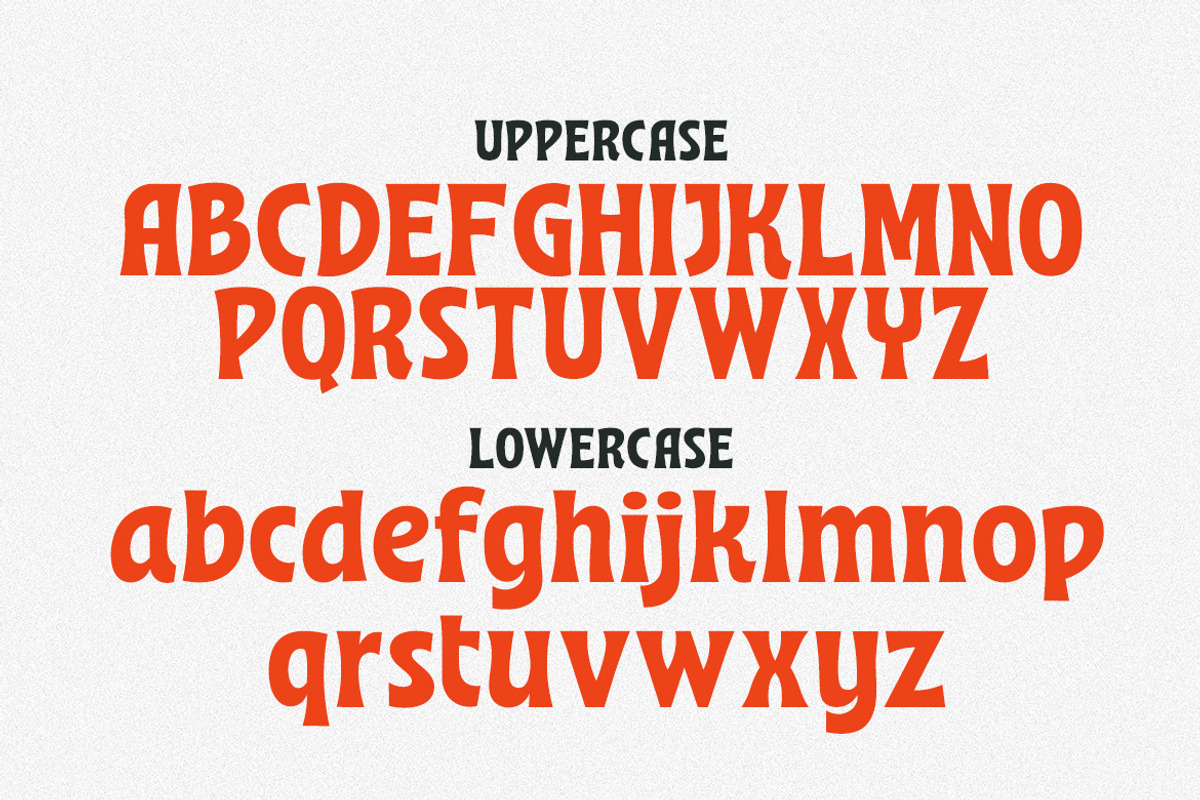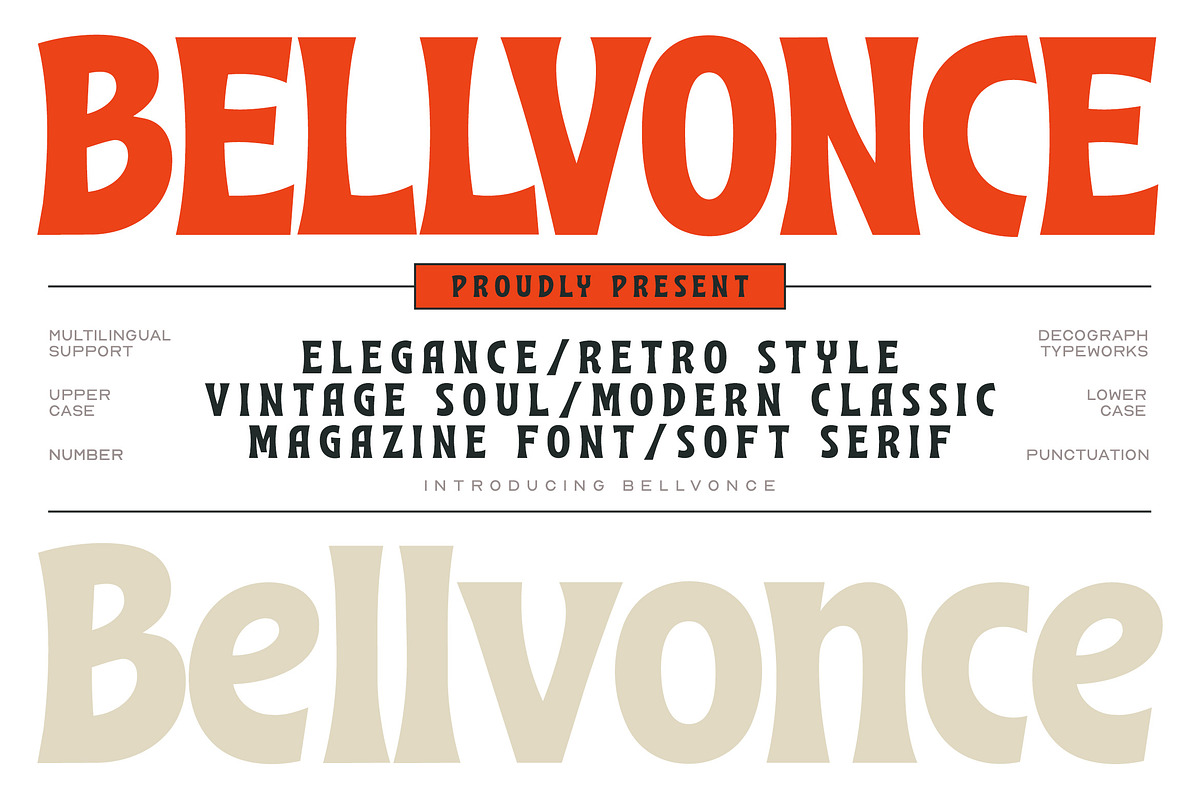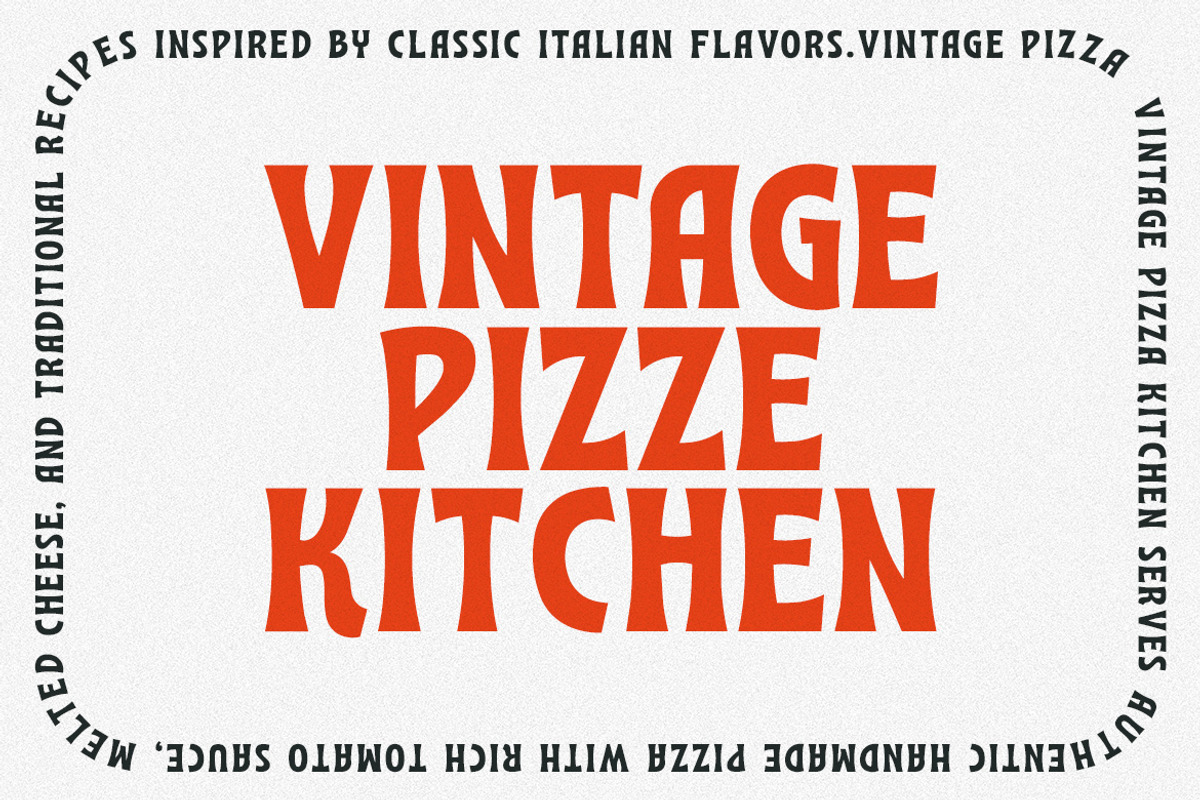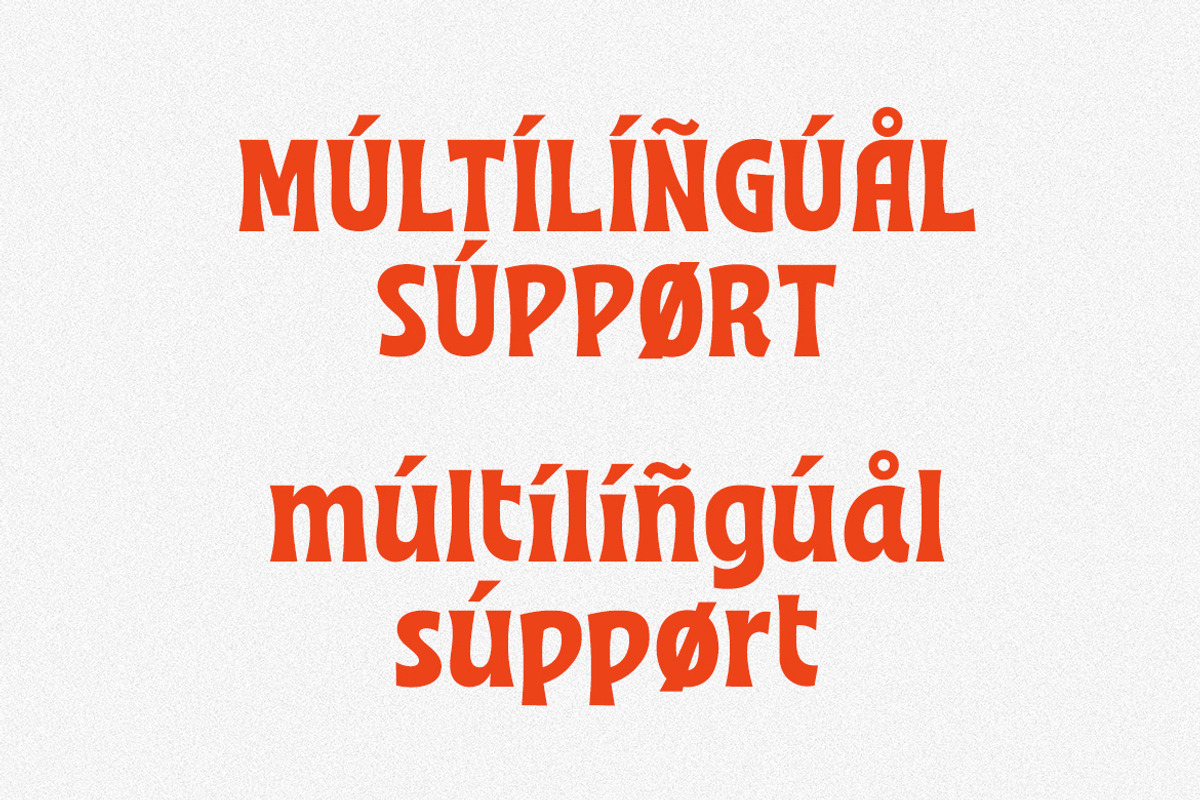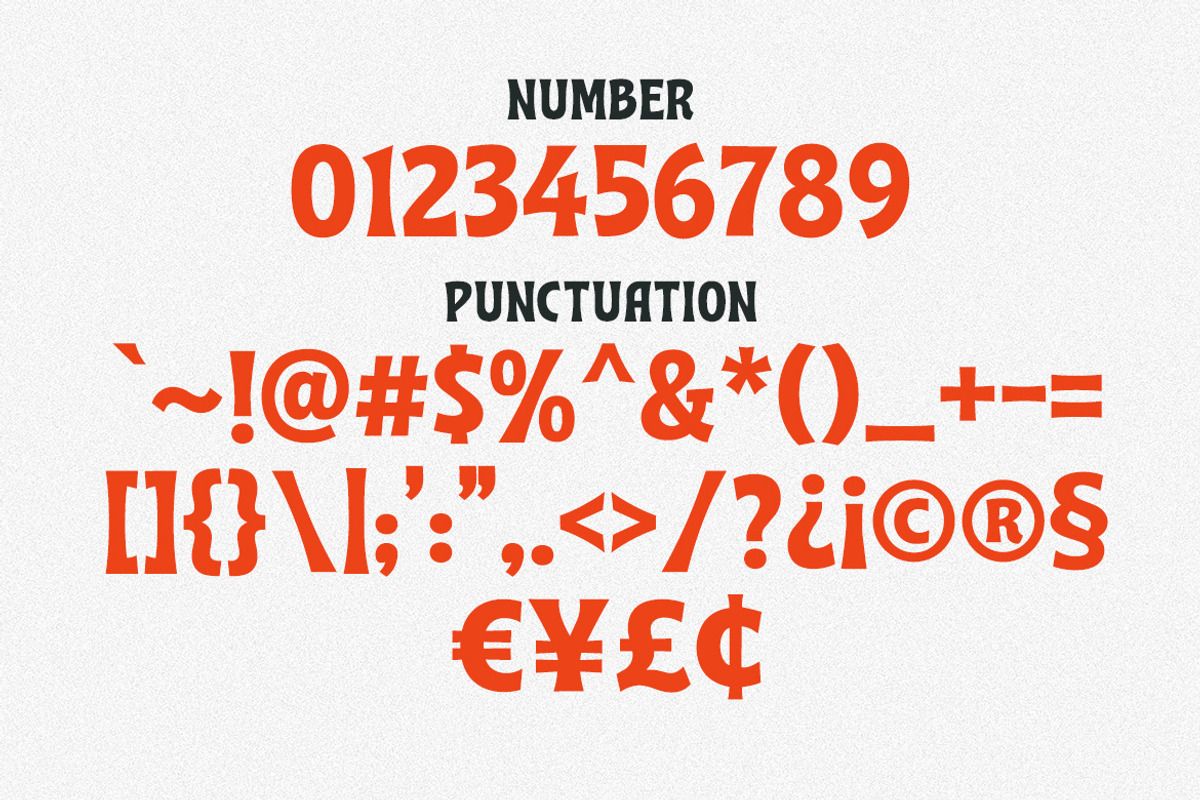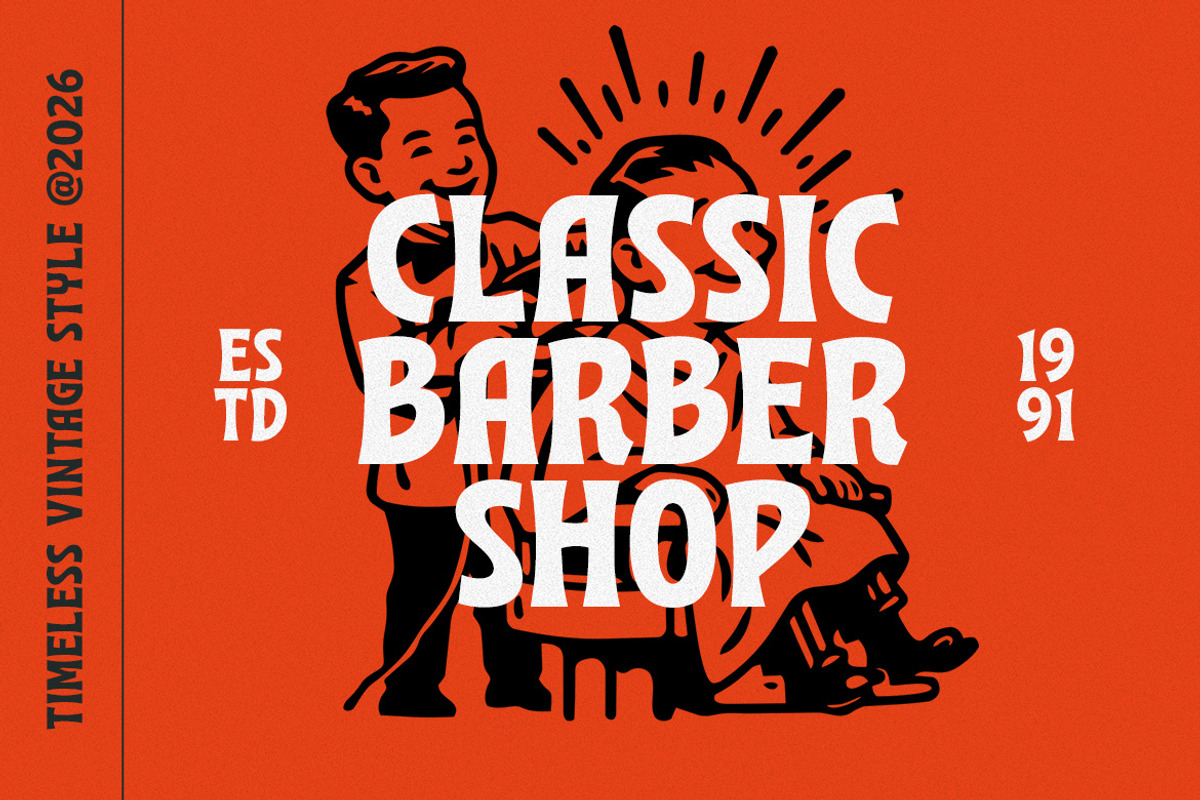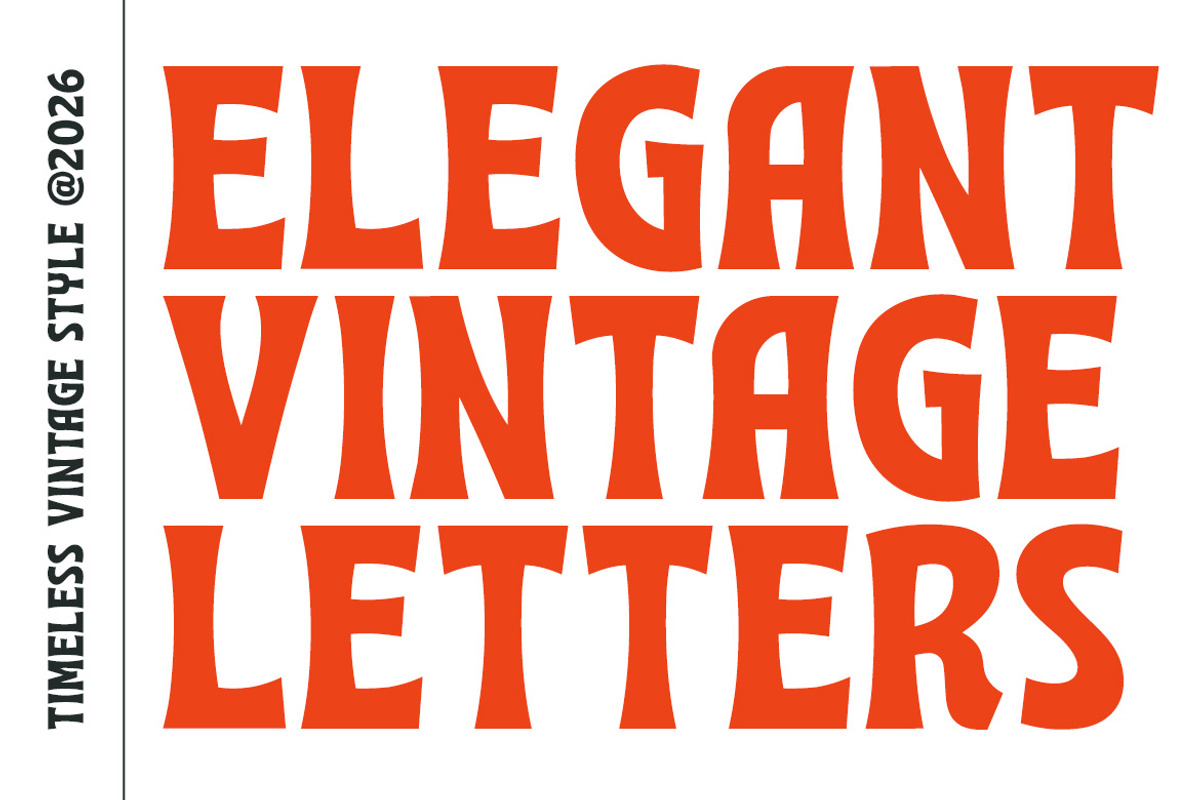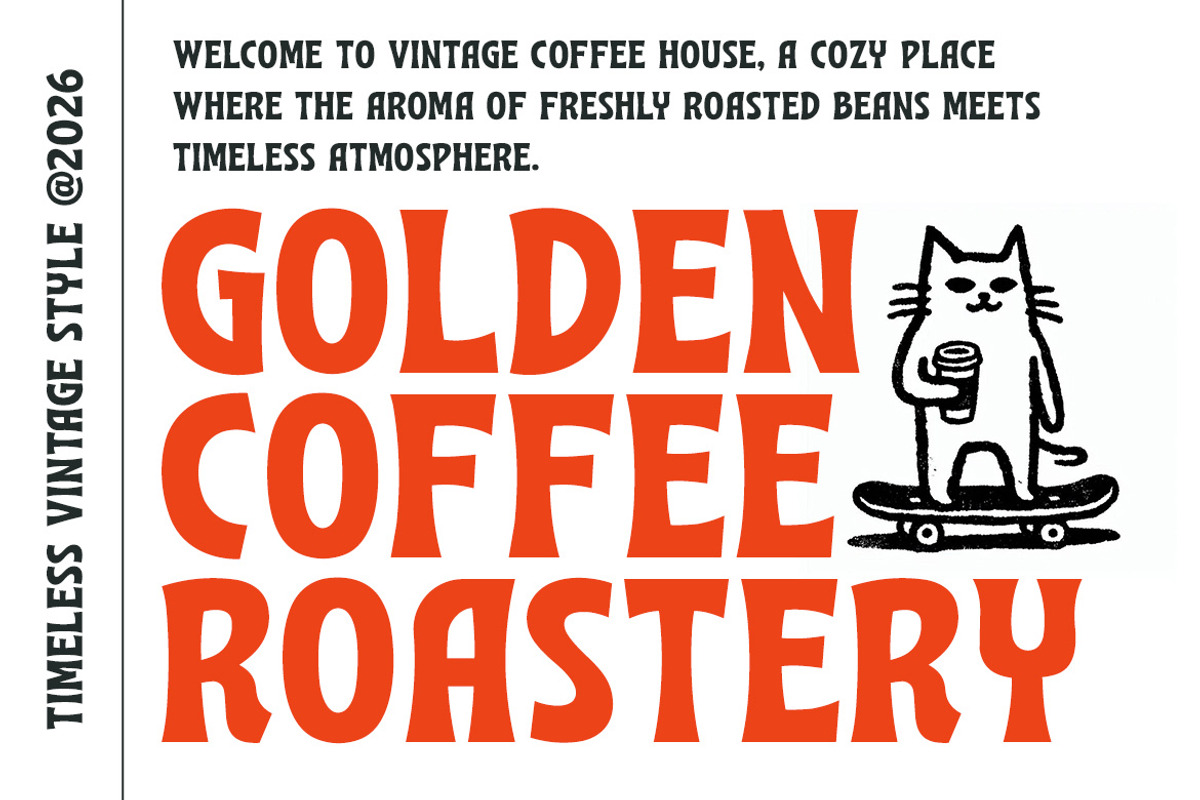
Bellvonce – Retro Soft Serif Display
Bellvonce is a refined retro soft serif display font that blends vintage elegance with a modern editorial touch, featuring smooth curves, bold proportions, and distinctive character shapes that radiate sophistication and timeless style. Inspired by classic magazine typography and mid-century design, Bellvonce delivers a luxurious yet approachable feel—perfect for fashion branding, editorial layouts, magazine headlines, packaging, logos, and lifestyle content. Its balanced contrast and stylish personality make it ideal for designers seeking a font that feels both nostalgic and contemporary, elevating every composition with a polished, high-end aesthetic.
:FEATURES:
- Smooth Kerning